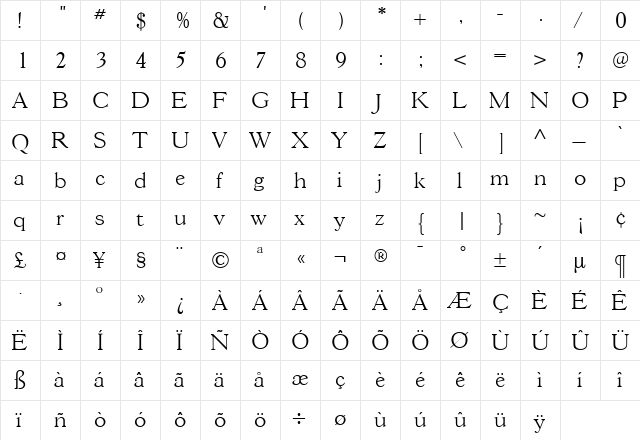
GoudY38Light Medium Font Preview
GoudY38Light Medium
Design Context for GoudY38Light Typeface
GoudY38Light takes a measured approach to typography — its balanced proportions and neutral character make it a reliable workhorse for both digital and print work. Its slender proportions lend an understated elegance to any composition.